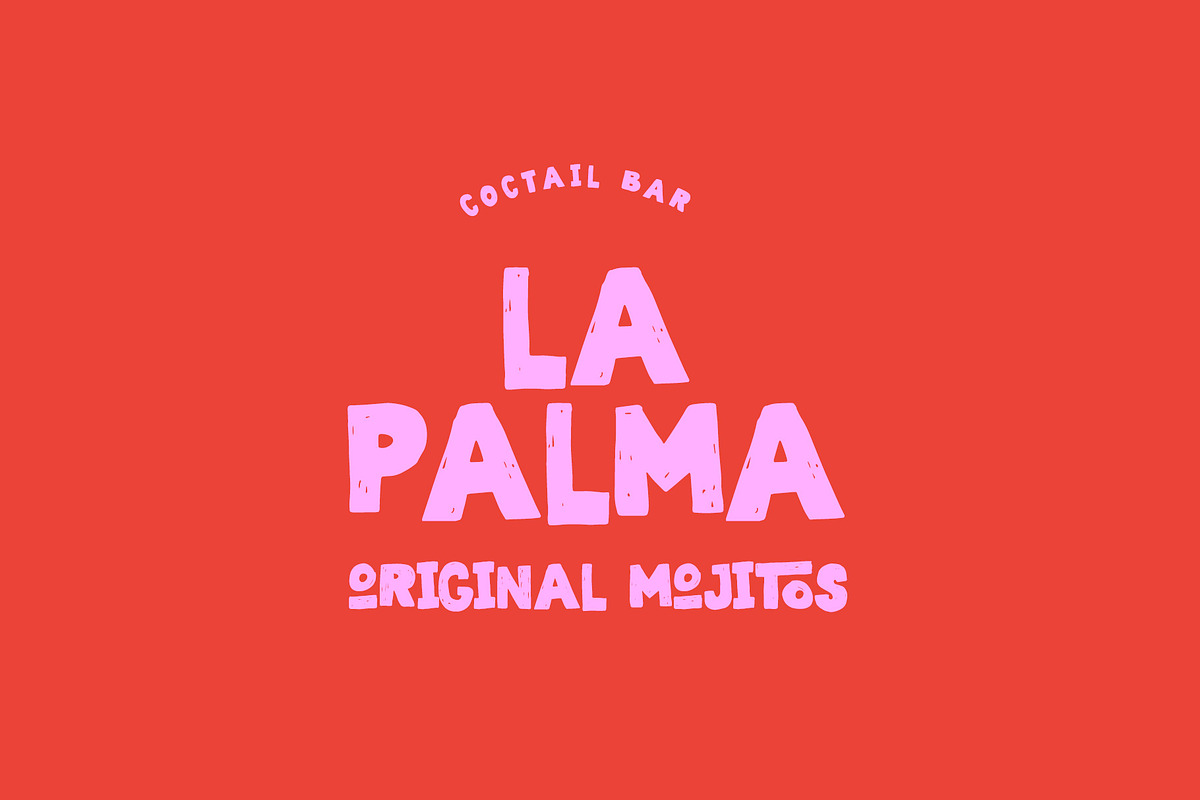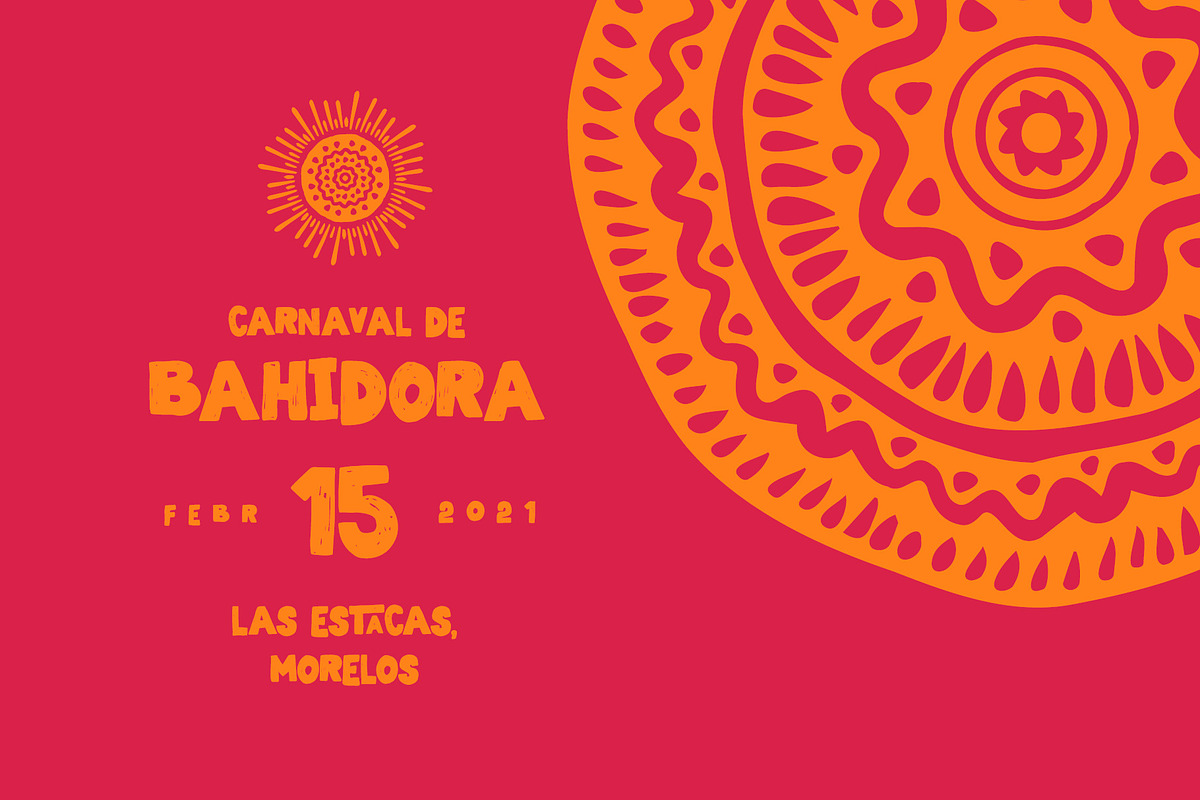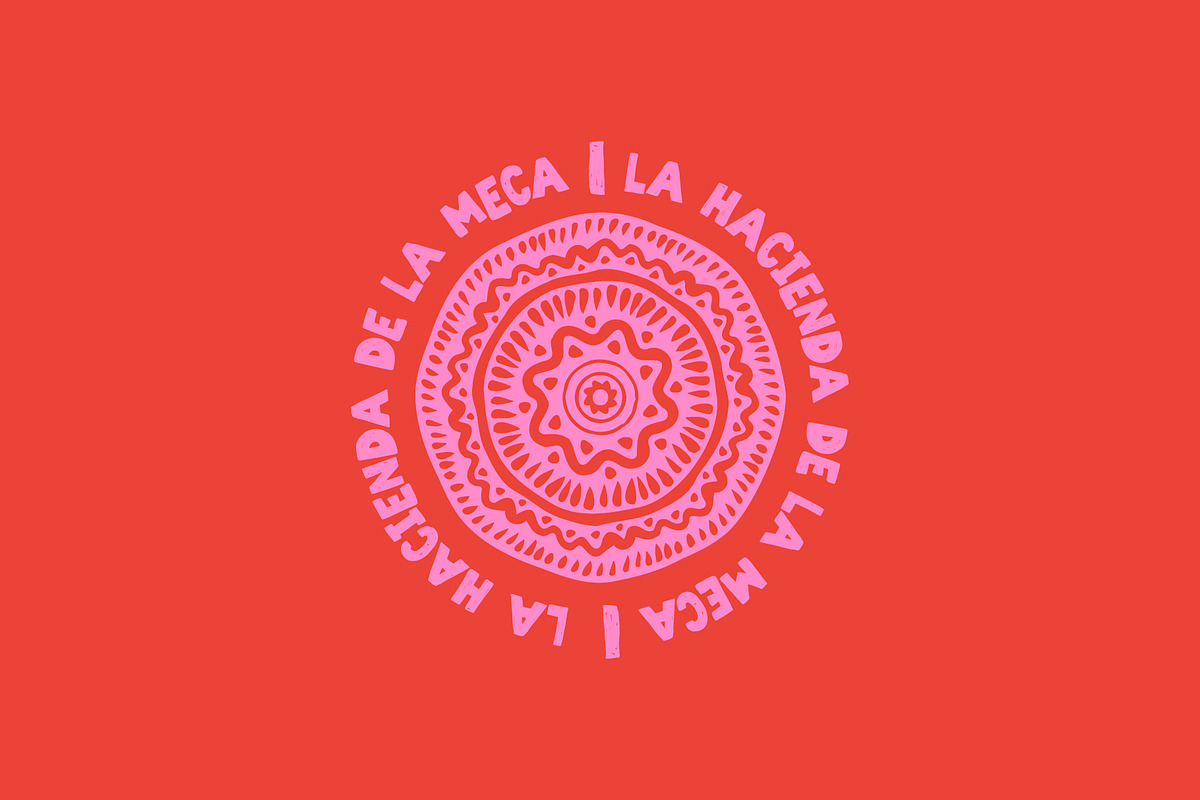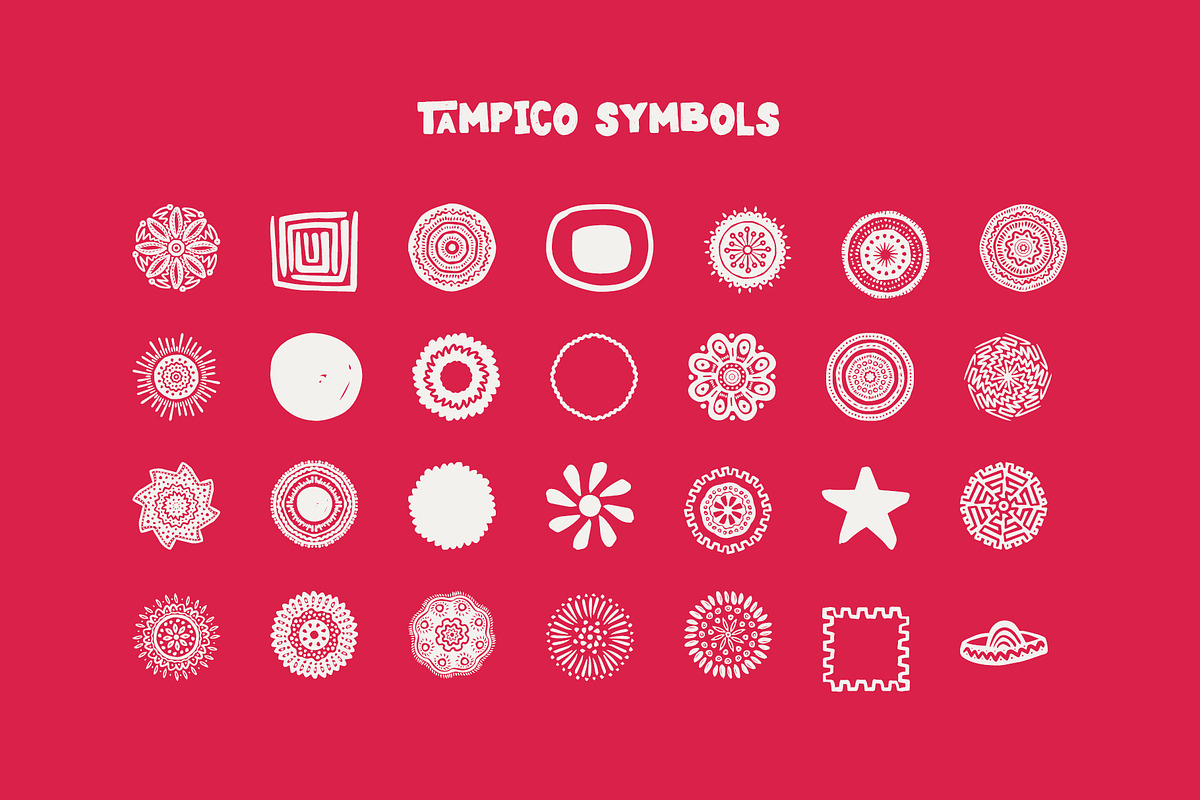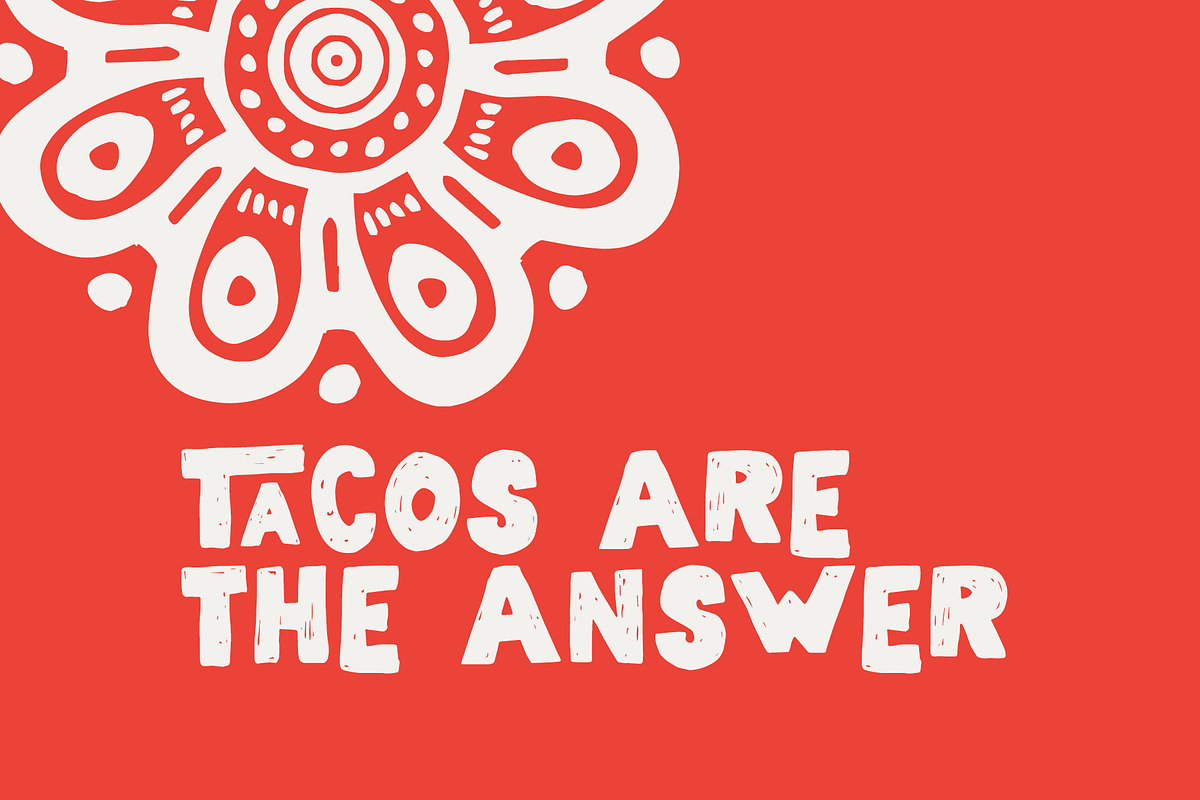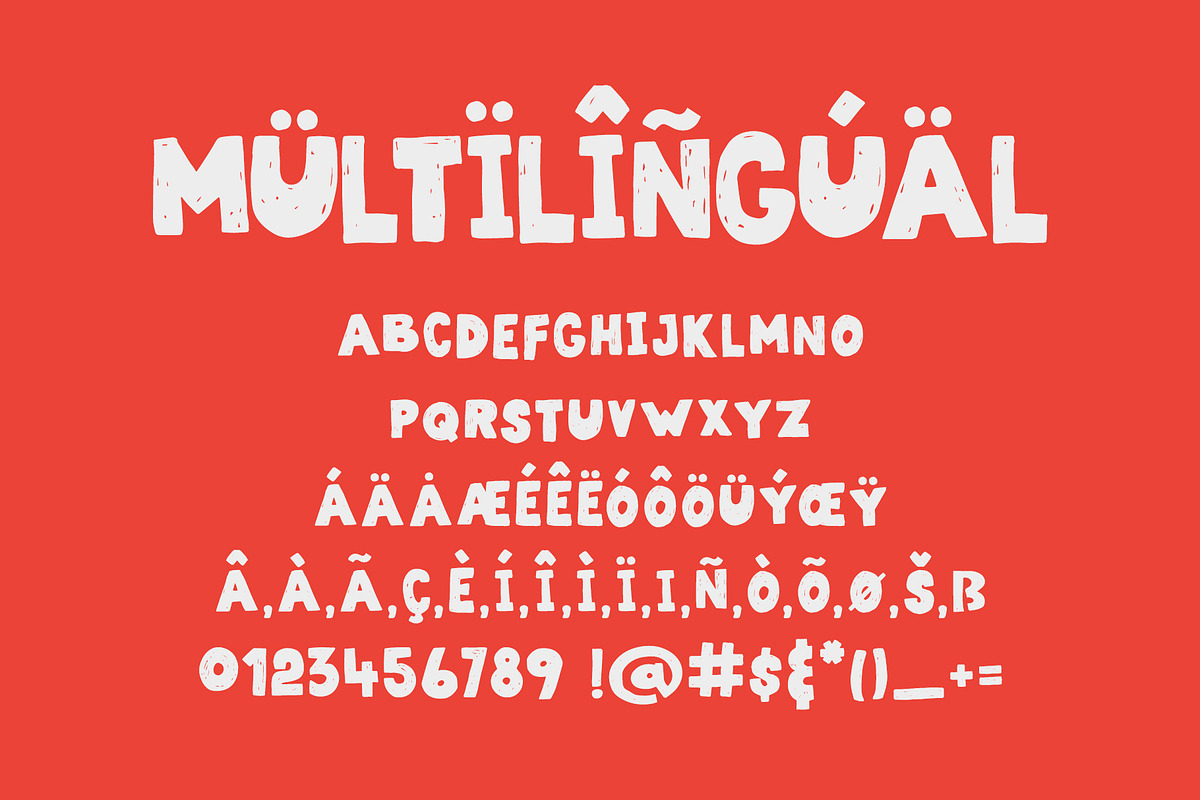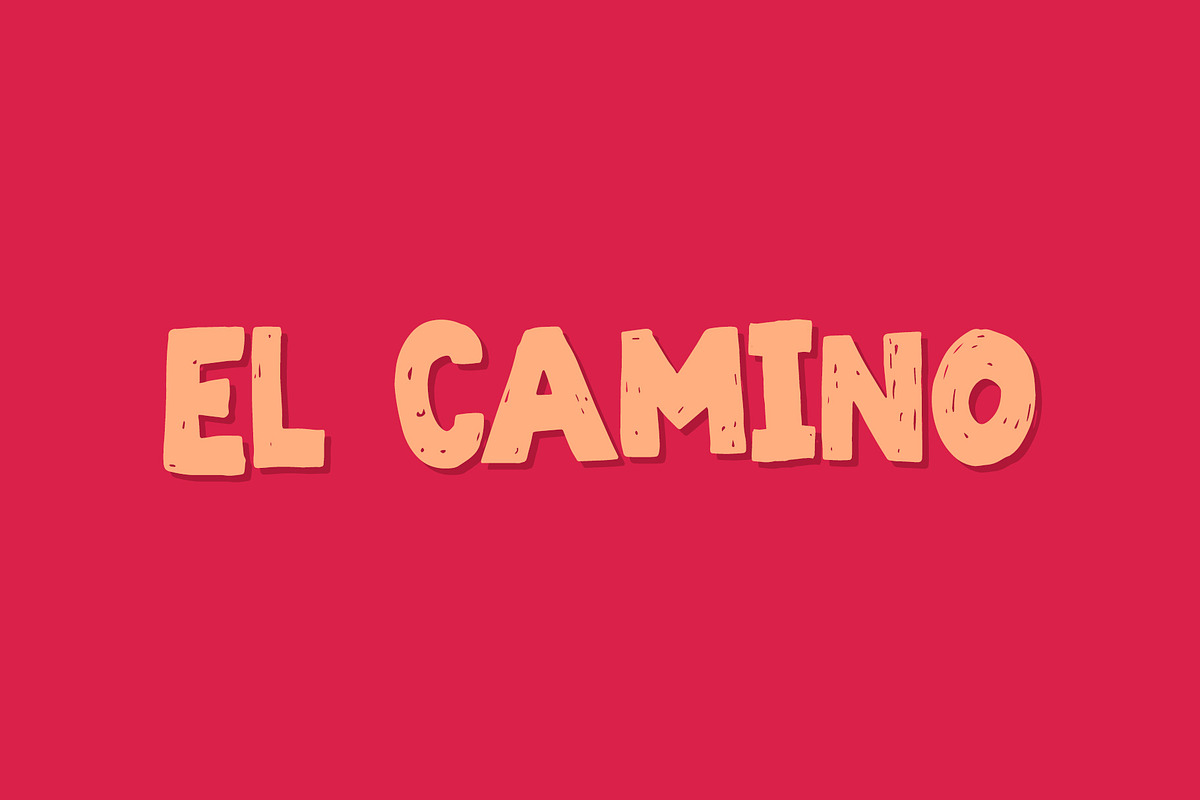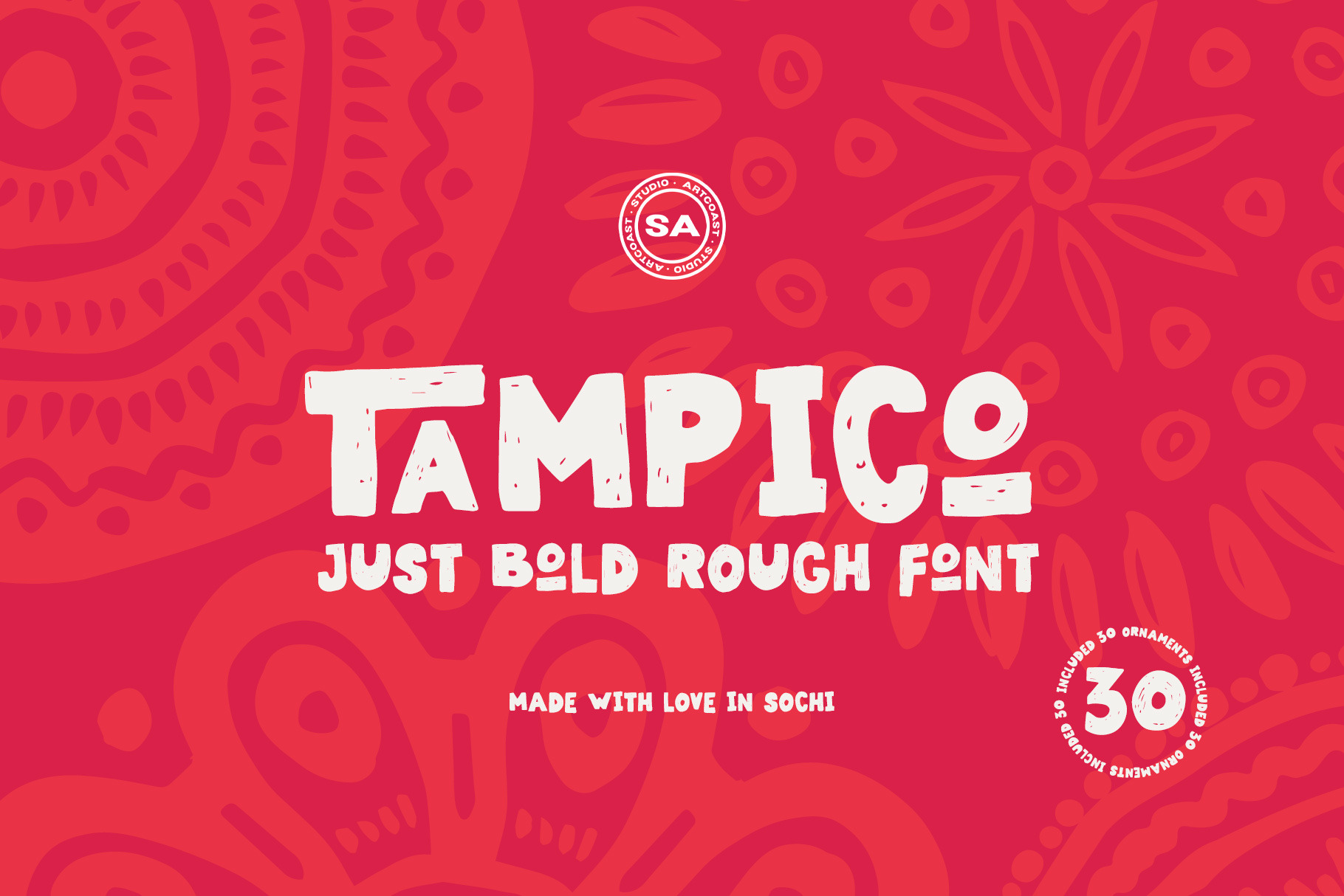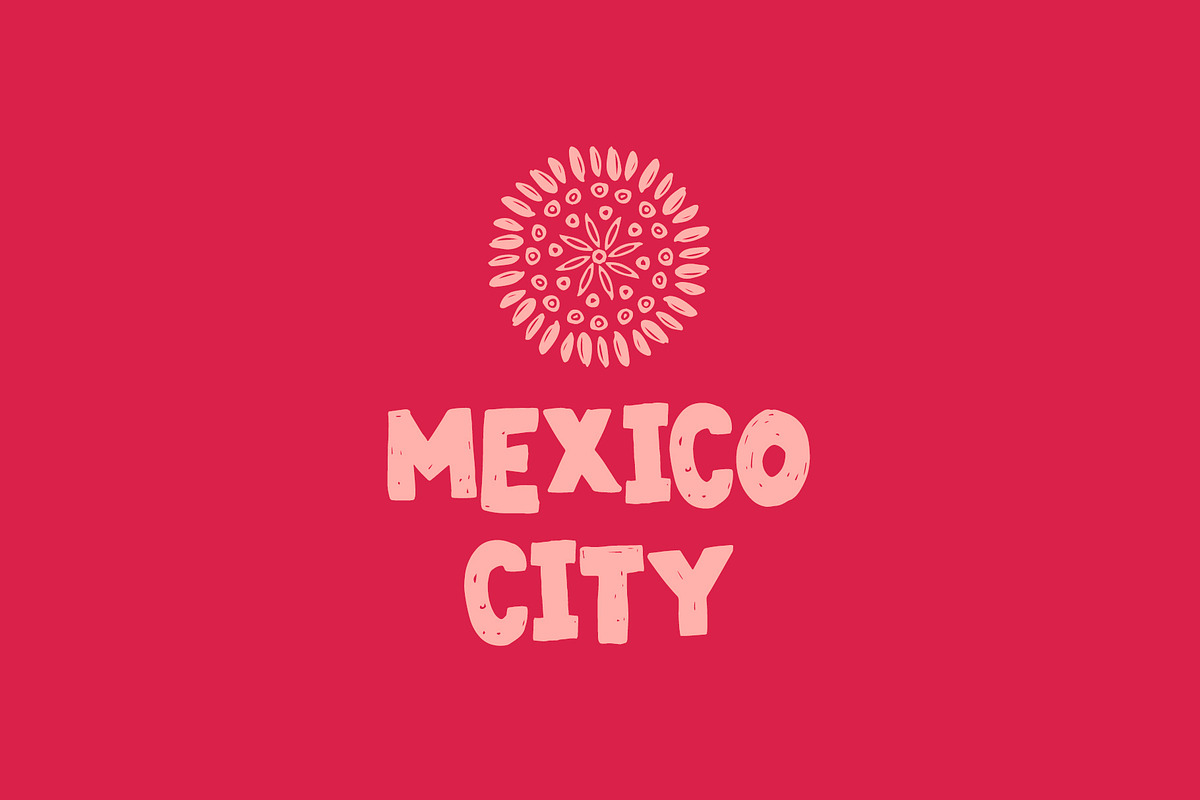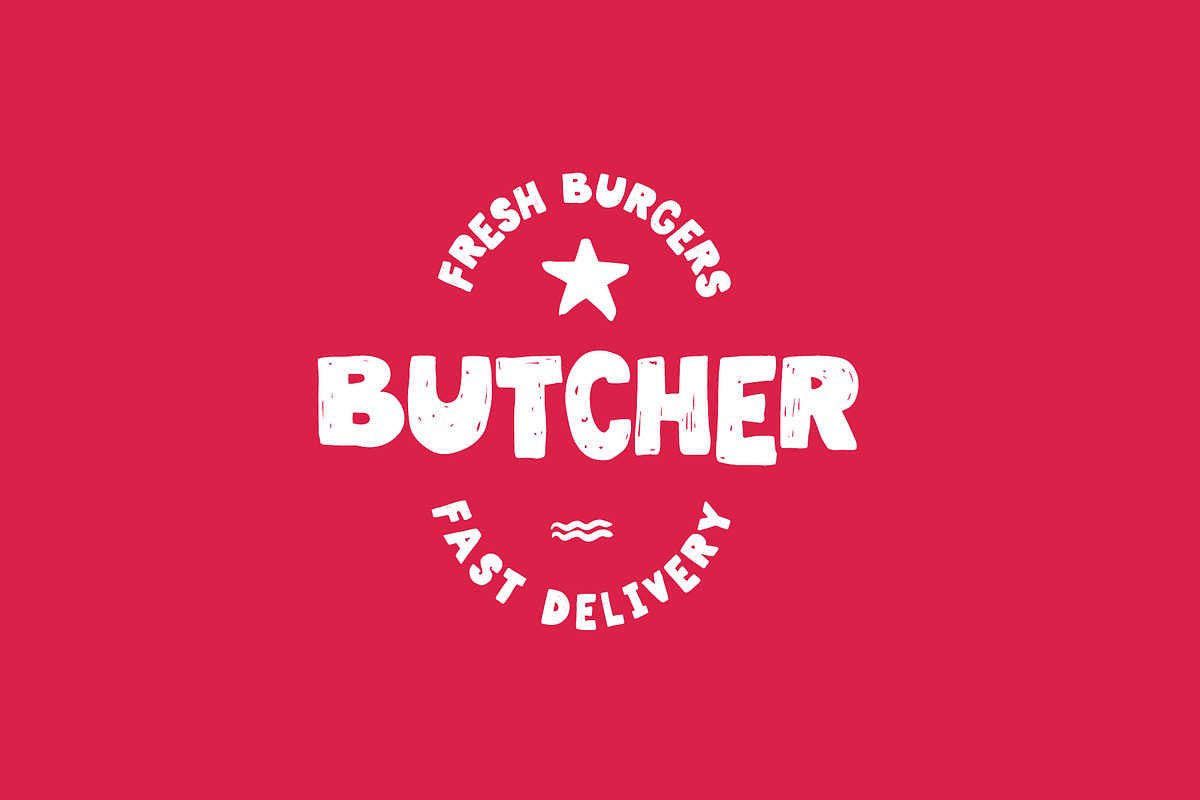
Tampico Rough Display Font
Tampico is a bold, rough display typeface with a handmade, ink-stamped character. Its chunky shapes and uneven edges bring energy to posters, food and beverage branding, packaging, badges, labels, menus, apparel, and editorial headlines.
30 decorative symbols and ornaments
Uppercase Latin alphabet
80+ glyphs
Numerals and punctuation
Multilingual accented characters
Stylistic alternates
Use Tampico when a project needs a bold vintage voice with a playful Mexican-inspired feel. The companion symbol font makes it easy to build cohesive logos, badges, frames, and decorative layouts.